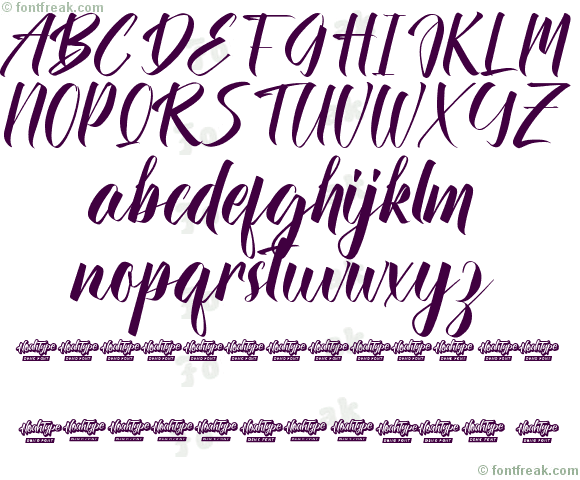
The Strange Demo
About The Strange Demo
The Strange Demo font by Noah Type is an elegant script font that merges sophistication with a touch of whimsy. This freeware font is characterized by its flowing strokes and graceful curves, making it ideal for a range of creative projects. The visual style features a moderate stroke weight with subtle contrast, giving it a refined yet approachable appearance. The spacing is well-balanced, allowing for easy readability while maintaining an artistic flair. Decorative elements, such as playful swashes and loops, enhance its unique character, making it stand out in any design.
The Strange Demo font is particularly well-suited for various applications. It works beautifully for wedding invitations, where its romantic style adds a personal touch to special announcements. Additionally, it’s perfect for movie posters, where its dynamic form can capture attention and convey the film's theme. Restaurant menus can also benefit from this font's inviting aesthetic, helping to create a warm dining atmosphere. Moreover, content creators looking to add a distinctive flair to their graphics will find this font a valuable asset in their toolkit.
Target audiences for The Strange Demo font include graphic designers, small business owners, and content creators who seek to infuse their projects with charm and elegance. This font not only enhances visual appeal but also communicates a sense of personality and creativity.
What sets The Strange Demo font apart is its versatility and artistic expression. It brings a unique voice to any design, allowing users to convey emotions and stories through typography. For those looking to enhance their creative projects, The Strange Demo font free download offers an opportunity to incorporate a striking and memorable typeface into their work.